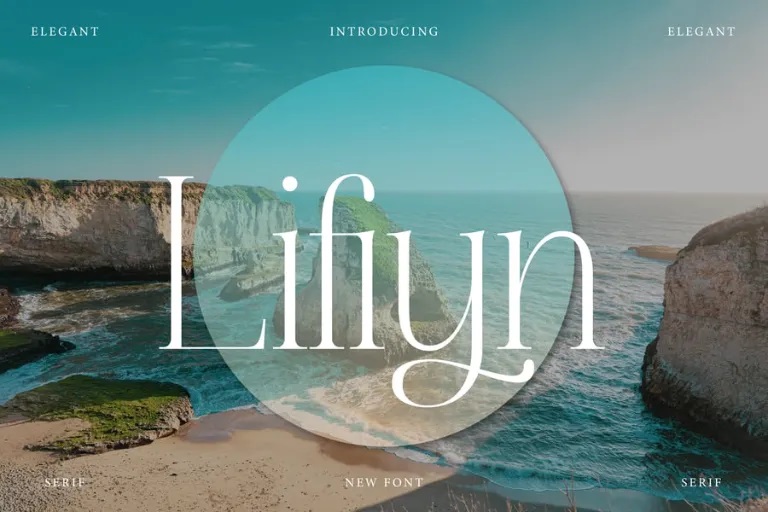
Lifiyn Font
Lifiyn is a serif font with smooth curves giving it an air of professionalism and its timeless nature. Lifiyn was designed for aesthetic and readability and comes with graceful curves refined serifs, and delicate proportions and can suit branding for luxury goods and services, editorial designs, and wedding invitations, and packaging.
This typeface is traditional but it has been designed to suit today’s modern ideas and ideas to create that perfect sophisticated look. Lifiyn boasts of a sleek and simple interface making it quite suitable for anyone seeking to come up with designs that require that extra bit of panache.
Lifiyn Serif Font